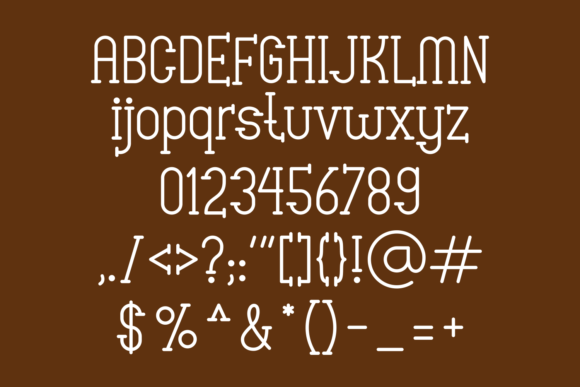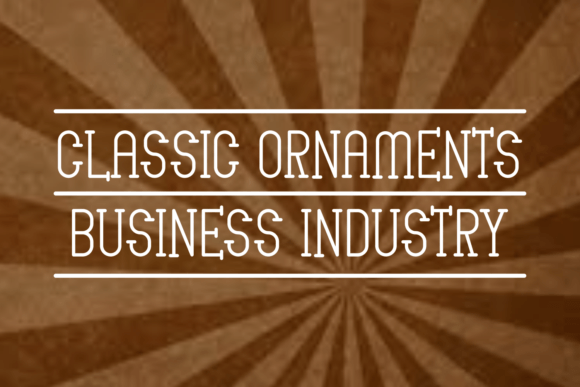
Gankuro Font: Elevate Your Designs with a Cool and Unique Serif Font
In the world of typography, fonts play a crucial role in conveying the tone and personality of a design. For designers and crafters, finding the perfect font can be a daunting task. However, if you’re looking for a cool and unique serif font that can elevate any creation, look no further than Gankuro Font. In this article, we’ll explore the features and benefits of Gankuro Font, and why it’s an incredible asset to your font library.
What is Gankuro Font?
Gankuro Font is a serif font that boasts a distinctive and stylish design. Its unique features make it stand out from other fonts, and its versatility ensures that it can be used for a wide range of projects. Whether you’re working on a branding project, a website, or a craft project, Gankuro Font is sure to make a statement.
Key Features of Gankuro Font
- Unique Serif Design: Gankuro Font features a distinctive serif design that sets it apart from other fonts. Its serifs are elegant and refined, making it perfect for designs that require a touch of sophistication.
- Cool and Modern: Gankuro Font has a cool and modern aesthetic that makes it perfect for designs that require a contemporary feel.
- Versatile: Gankuro Font can be used for a wide range of projects, from branding and advertising to web design and crafting.
- Elegant and Refined: Gankuro Font has an elegant and refined design that makes it perfect for designs that require a touch of sophistication.
Benefits of Using Gankuro Font
So, why should you use Gankuro Font in your designs? Here are just a few benefits of using this amazing font:
- Elevate Your Designs: Gankuro Font has the potential to elevate any creation, making it perfect for designers and crafters who want to take their designs to the next level.
- Stand Out from the Crowd: Gankuro Font is a unique and distinctive font that will help your designs stand out from the crowd.
- Perfect for a Wide Range of Projects: Gankuro Font can be used for a wide range of projects, making it a versatile addition to your font library.
- Add a Touch of Sophistication: Gankuro Font has an elegant and refined design that adds a touch of sophistication to any design.
How to Use Gankuro Font in Your Designs
Using Gankuro Font in your designs is easy. Here are a few tips to get you started:
- Pair it with Other Fonts: Gankuro Font pairs well with other fonts, making it perfect for designs that require a combination of fonts.
- Use it for Headings and Titles: Gankuro Font is perfect for headings and titles, where its unique design can really make an impact.
- Experiment with Different Sizes and Colors: Gankuro Font looks great in a variety of sizes and colors, so don’t be afraid to experiment and find the perfect combination for your design.
In conclusion, Gankuro Font is a cool and unique serif font that has the potential to elevate any creation. Its distinctive design, versatility, and elegance make it an incredible asset to your font library. Whether you’re a designer or crafter, Gankuro Font is perfect for a wide range of projects, from branding and advertising to web design and crafting. So why not give it a try and see the difference it can make in your designs?